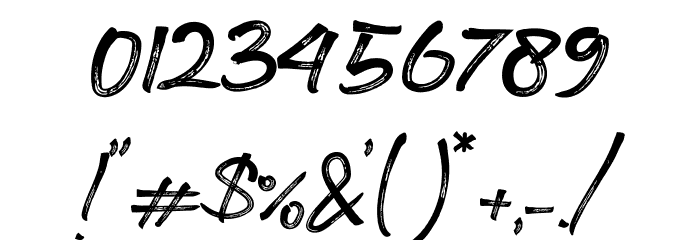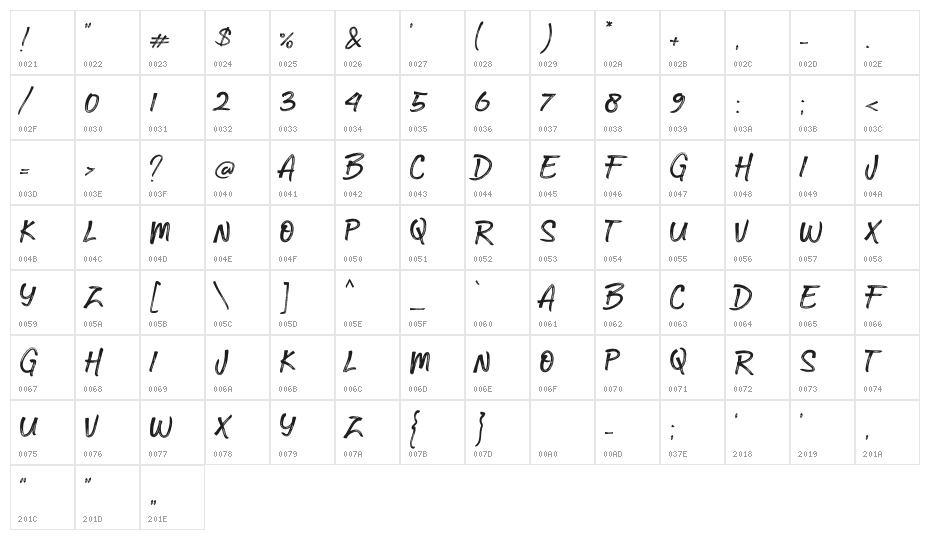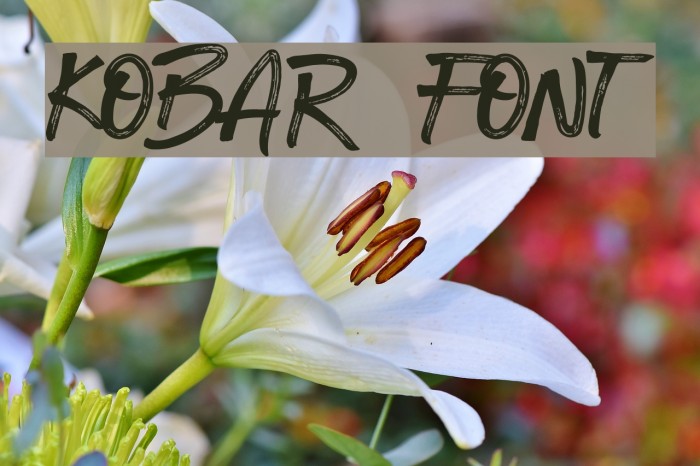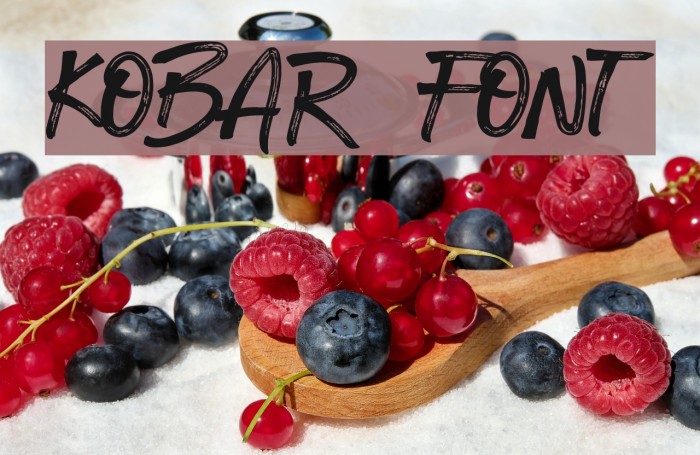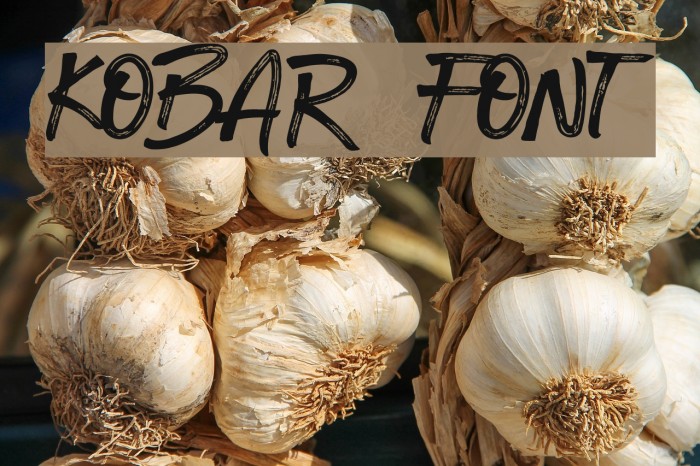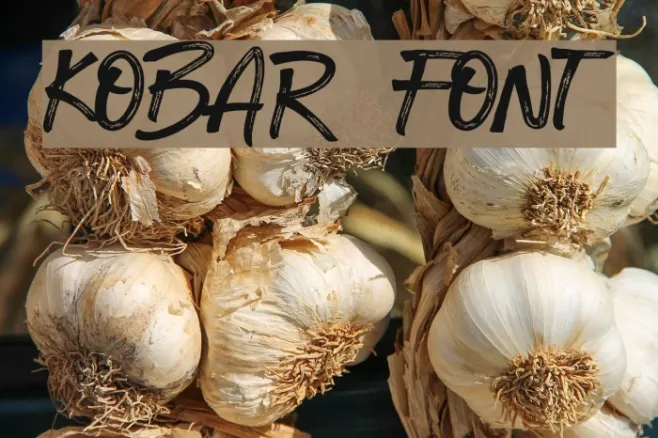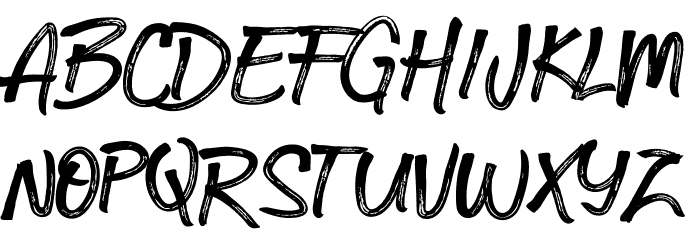
KOBAR FONT Font
KOBAR FONT Description
This font features a bold and dynamic handwritten style, characterized by its energetic strokes and slightly irregular letterforms. The uppercase and lowercase letters maintain a consistent flow, giving the text a lively and informal appearance. The numbers and special characters are crafted with the same expressive flair, ensuring a cohesive look across all elements. This font's brush-like texture adds a sense of movement and spontaneity, making it ideal for projects that require a personal touch or a creative edge.
| Proposed Projects | Ideal for branding, posters, social media graphics, and creative projects that require a personal or artistic touch. |